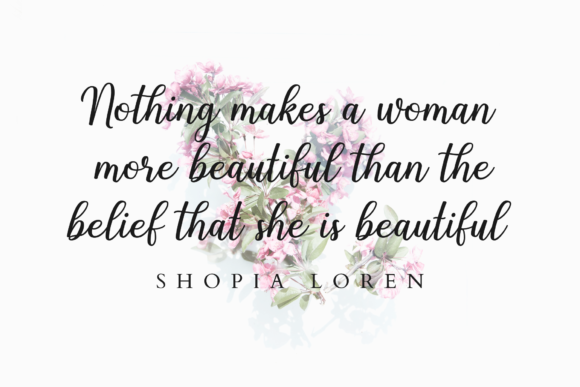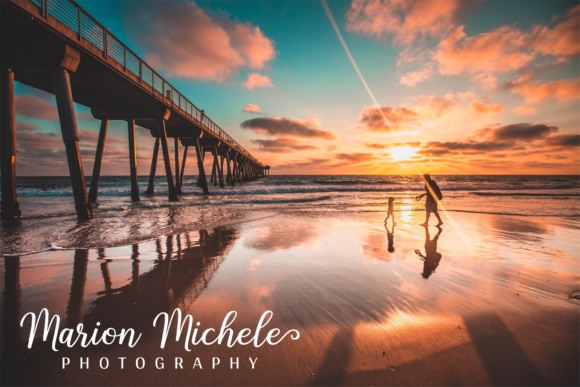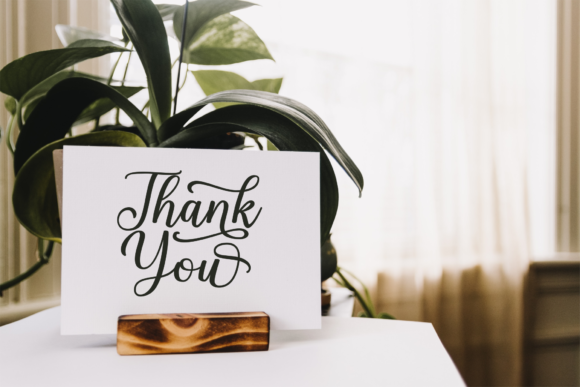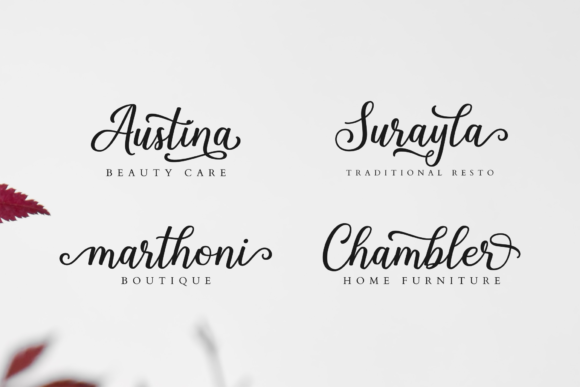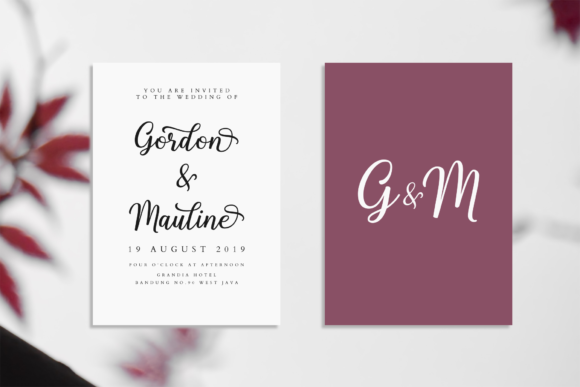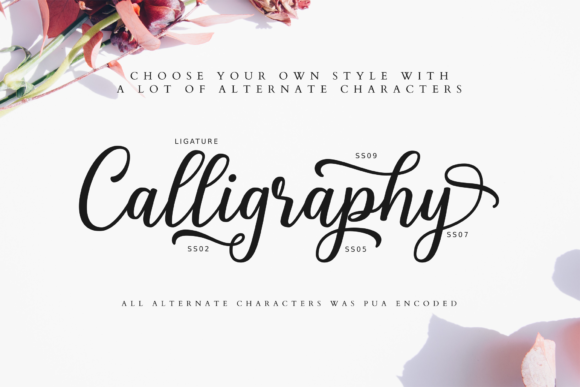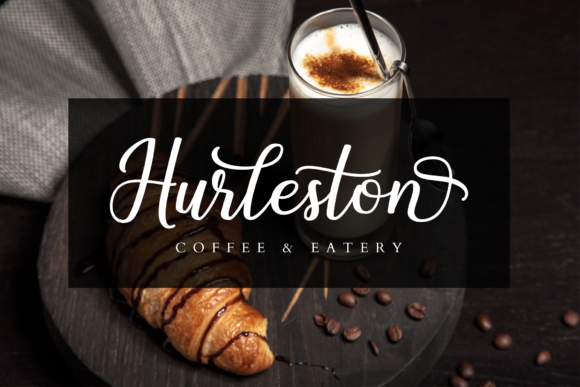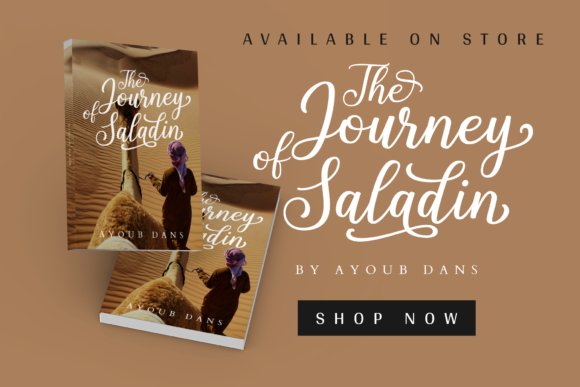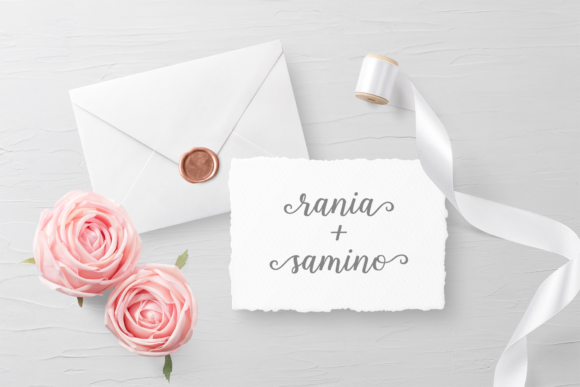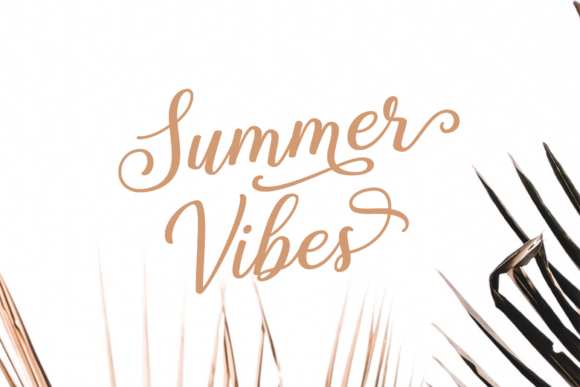
HomeScript FontsShalinta Font Script Fonts Shalinta Font FacebookXPinterestWhatsApp Shalinta Font Poster 2 Shalinta Font Poster 3 Shalinta Font Poster 4 Shalinta Font Poster 5 Shalinta Font Poster 6 Shalinta Font Poster 7 Shalinta Font Poster 8 Shalinta Font Poster 9 Shalinta Font Poster 10 Shalinta Font Poster 11 Shalinta Font Poster 12 About Shalinta Font Shalinta is a beautiful calligraphy font with alternates that can be used to make your design even more beautiful. DOWNLOAD ON CREATIVE FABRICAThis font is sold and delivered by Creative Fabrica. Font Canyon may earn a commission if you buy through this link. People also explored Directed Font Emilijah Font Symptomatic Selington Font Ragellia Mellinda Font Mention Font Softline Font Agree Font Suki Yaki Font 335 0 TagsShalinta Font Previous articleCherrio Brush FontNext articleSummer Beach Font LEAVE A REPLY Cancel reply Comment: Please enter your comment! Name:* Please enter your name here Email:* You have entered an incorrect email address! Please enter your email address here Website: Save my name, email, and website in this browser for the next time I comment. Personal Use Free Angelika Playful Personal Use Free Read more about this font Screengem Personal Use Free Read more about this font Equestrain Personal Use Free Read more about this font Amelline Personal Use Free Read more about this font BLOG How to Cut Any Font on Cricut: Convert a Font to SVG (Free) Turn any font into a clean SVG so it cuts crisp on Cricut - a quick 3-step workflow using a free font-to-SVG tool. Best Fonts for T-Shirt Design – Top 2025 Picks Best Fonts for YouTube Videos: Make Your Thumbnails Stand Out The 10 Best Handwriting Fonts to Add Personality to Your Designs